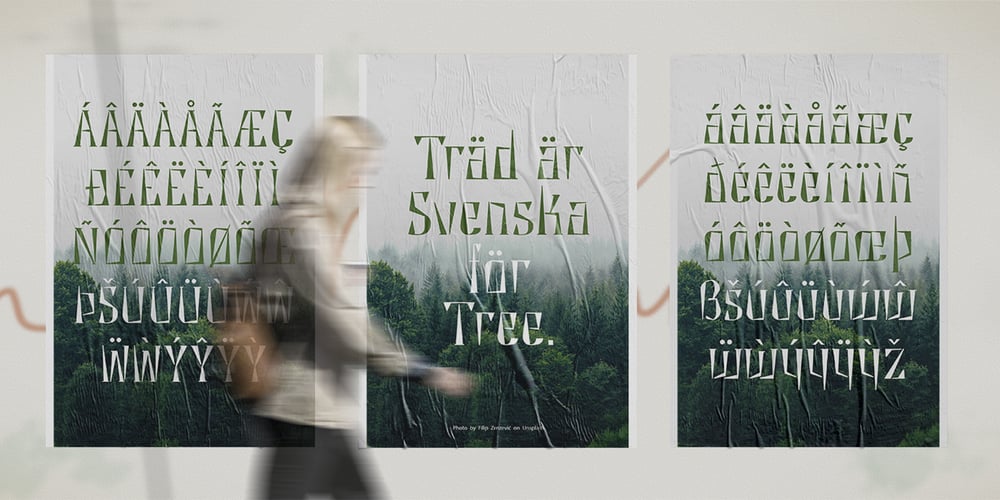
Trad Font Family was designed by John Power and published by Powerfonts. Trad contains 1 styles and family package options. Trad (Träd is Swedish for tree) is inspired by viking mythology and runic alphabets. Imagine a viking warrior crudely carving a message into a tree stump with his trusty dagger, sipping on a flagon of ale and pondering a hard days slaying. Like the blade of his blood encrusted axe, Trad is ideal for projects requiring a sharp edge, such as the cover of your next thriller, zombie flick, or death metal album.